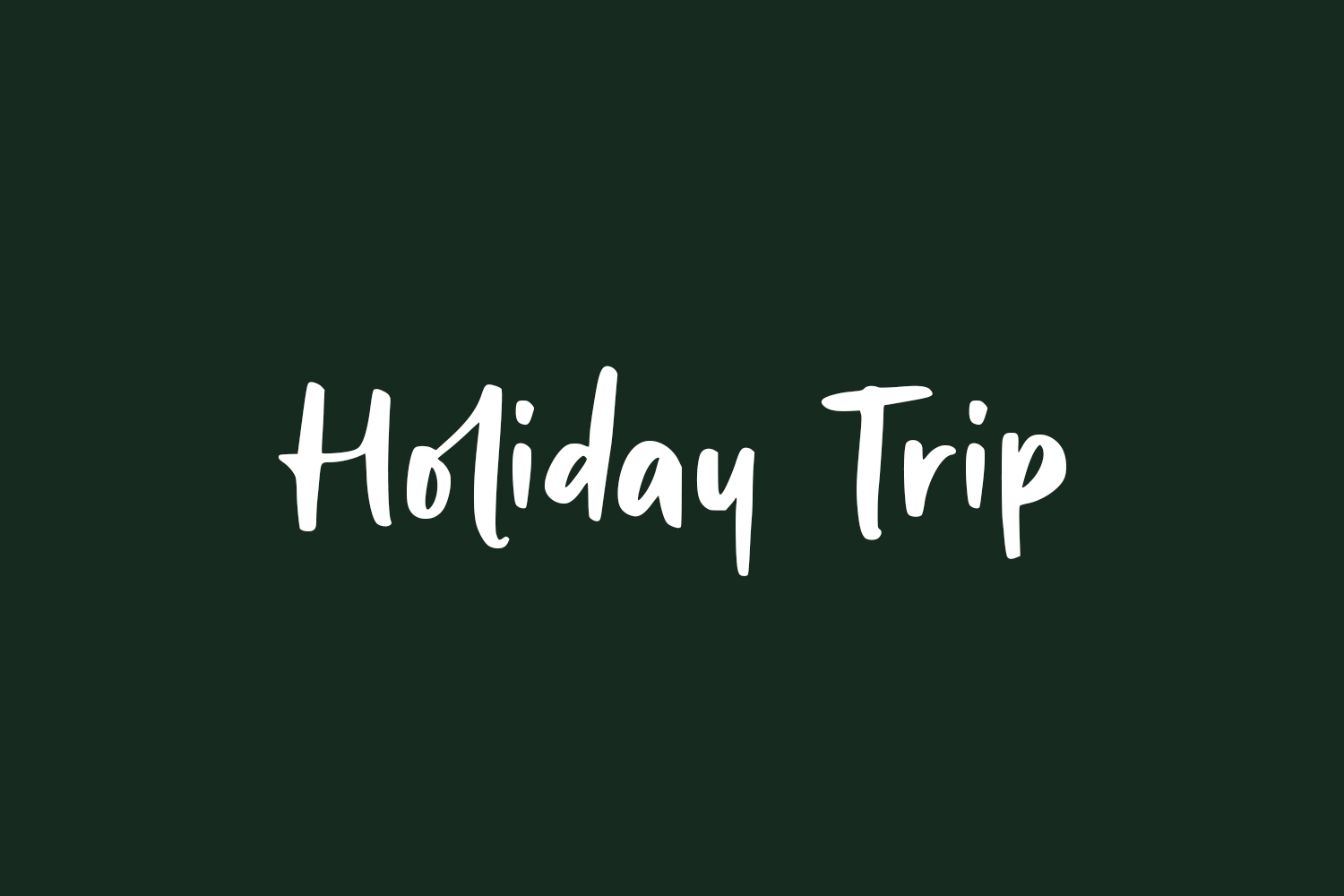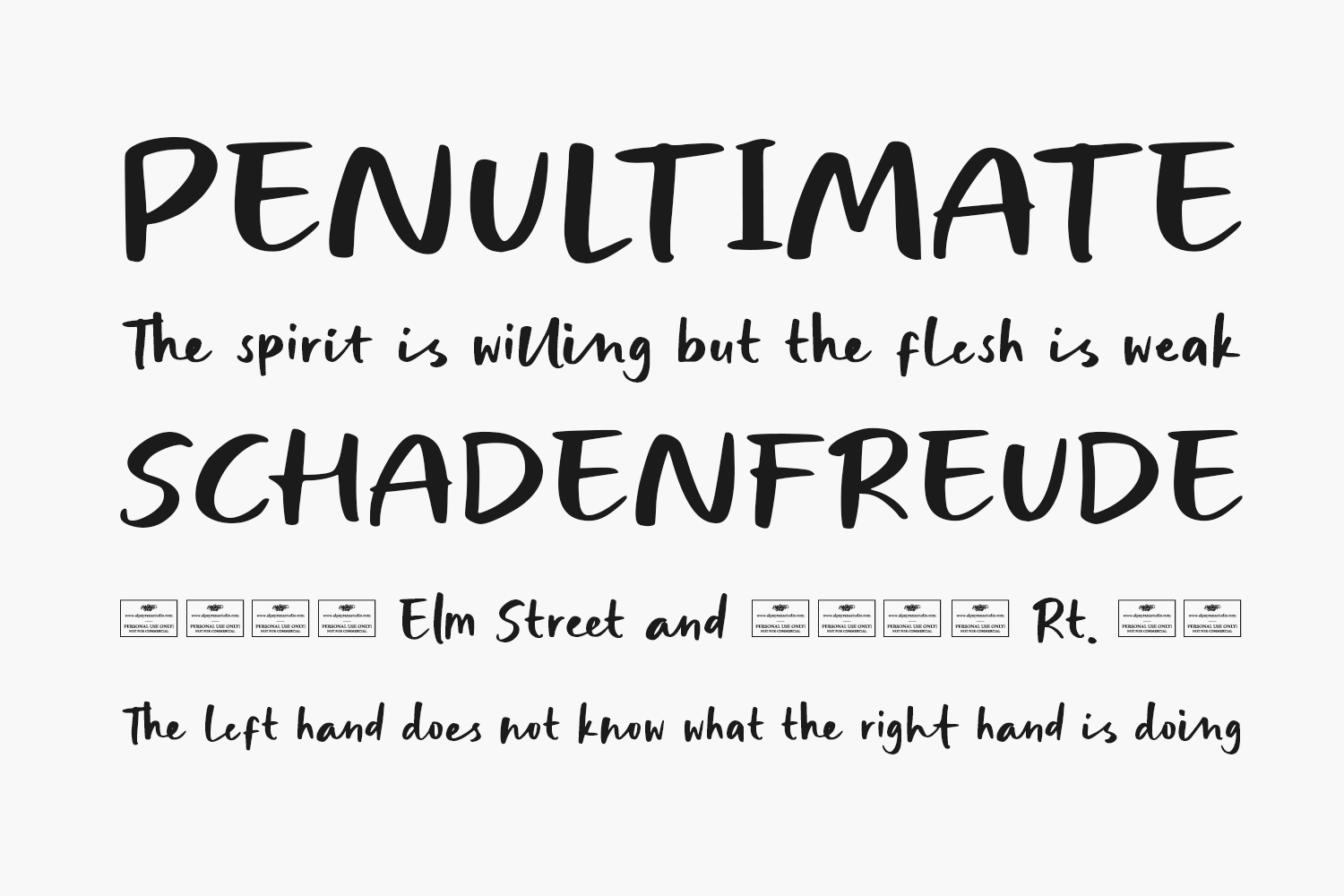
Holiday Trip – Free Playful Display Font for Travel & Summer Designs
Holiday Trip was designed by Alpaprana Studio and is a fun, casual display font that brings a carefree vacation vibe to your designs. With its rounded edges, relaxed letterforms, and subtle bounce effect, this free font is perfect for travel-themed projects, summer promotions, beachwear branding, and social media graphics. Available in OTF format with full Latin character support, Holiday Trip offers a free commercial-use typeface for designers who want to add a playful, sunny touch to their work.
Why Choose Holiday Trip?
- Playful Personality: Casual rounded shapes evoke summer vibes and travel adventures
- Excellent Readability: Clear forms maintain legibility even at smaller sizes
Where to Use Holiday Trip?
This versatile summer font works perfectly for:
- Travel Branding: Vacation agencies, hotel logos, tour operator identities
- Seasonal Promotions: Summer sales, festival posters, beach party flyers
- Product Packaging: Sunscreen labels, swimwear tags, tropical food products
- Social Media Graphics: Instagram travel quotes, Pinterest summer guides, YouTube thumbnails
- Kids’ Designs: Summer camp materials, playful book covers, educational products
Design Tips with Holiday Trip
Designed by Alpaprana Studio